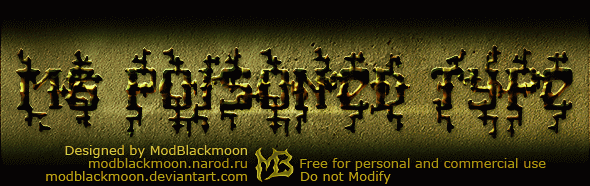
Preview and download MB Poisoned Type Font. Created by Irina ModBlackmoon in Fancy Decorative styles with 100% Free license.
Horror Alien Font. Created in Photoshop. Incl. English, European and Cyrillic letters. Free for any use. |